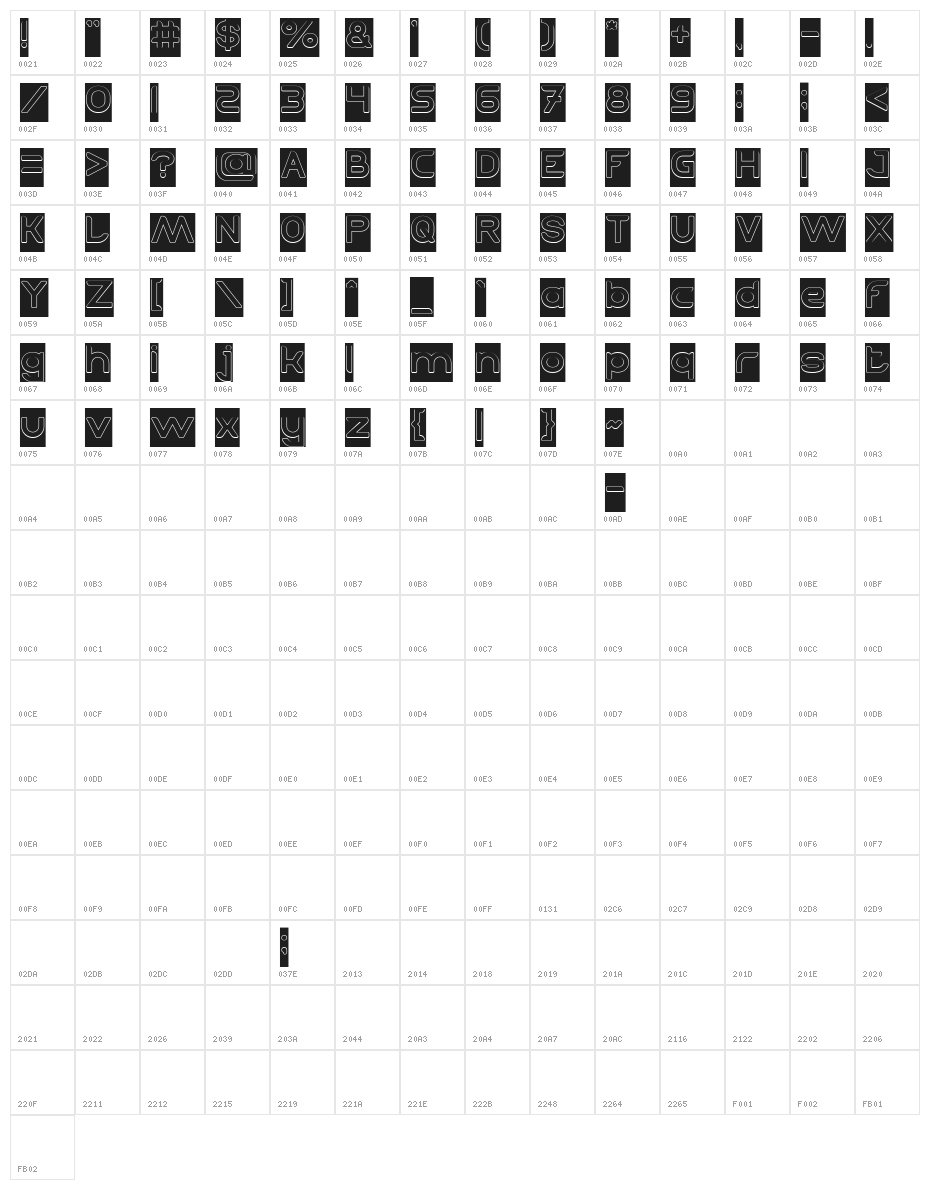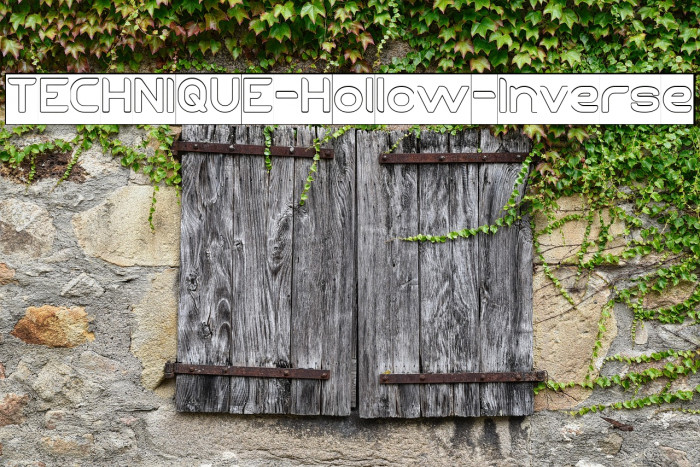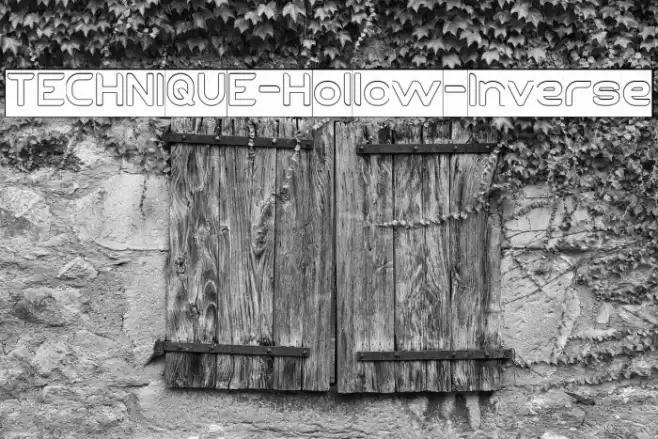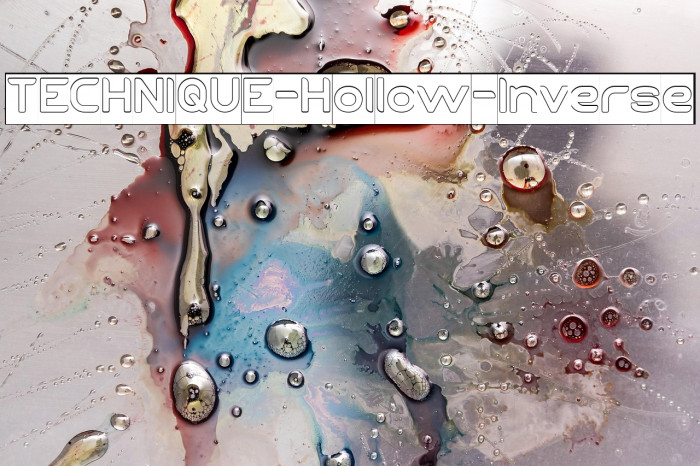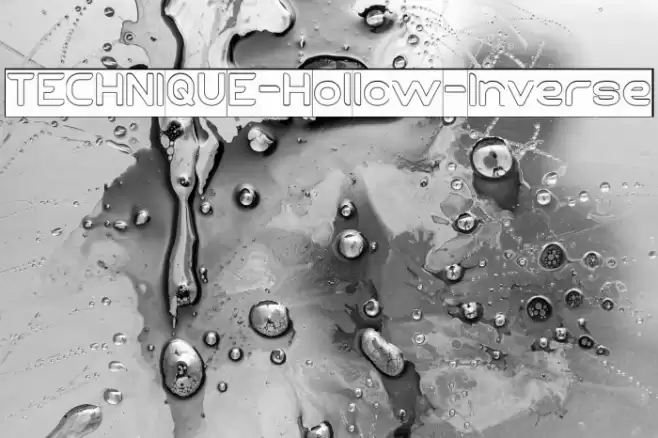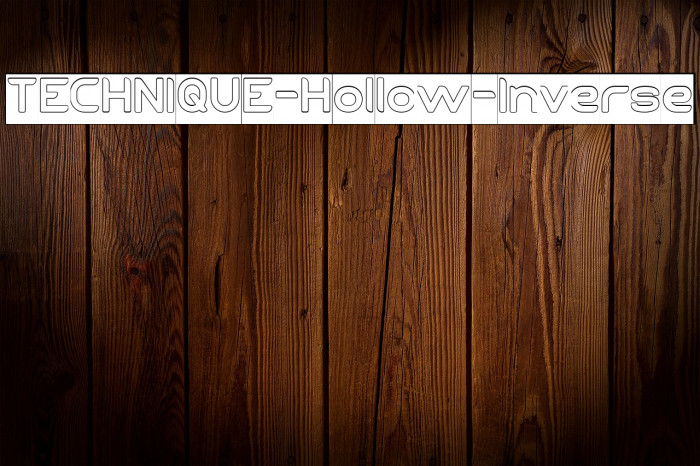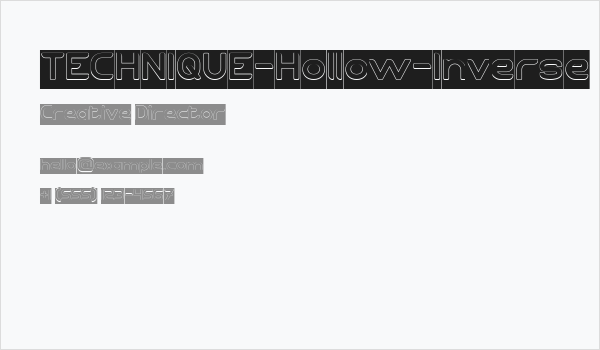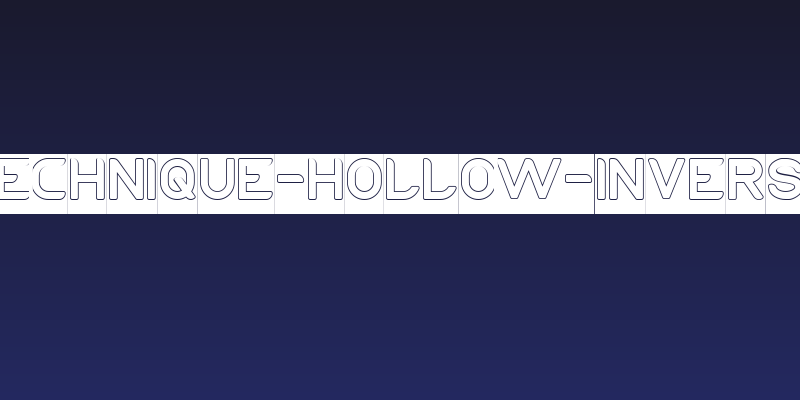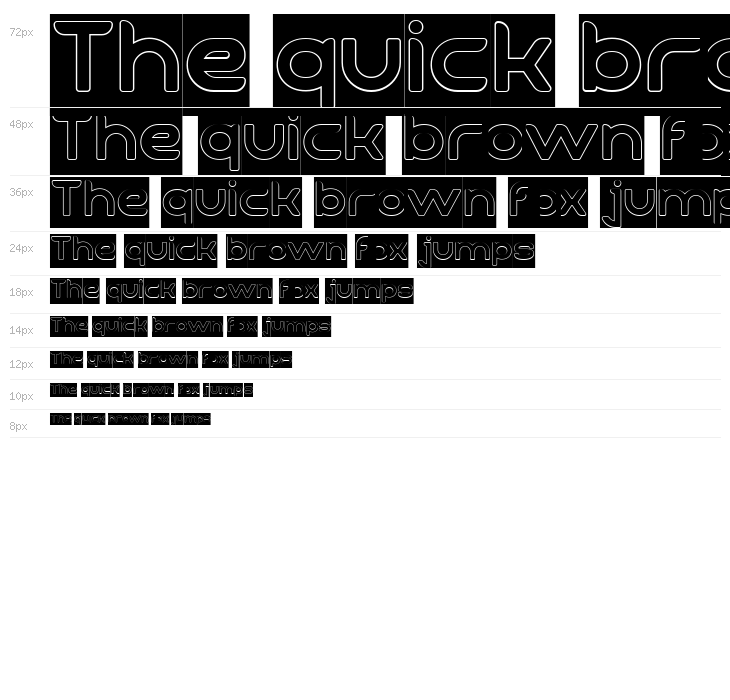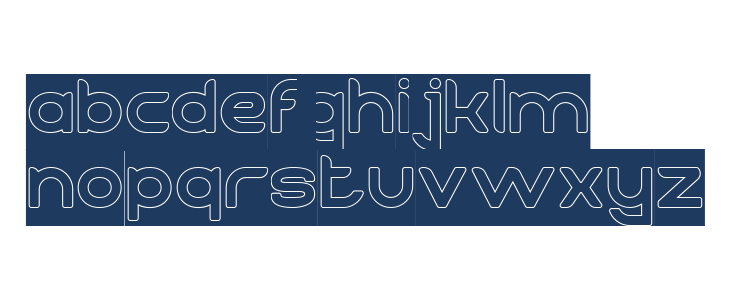
TECHNIQUE-Hollow-Inverse Font
TECHNIQUE-Hollow-Inverse Description
This font features a hollow, inverse design with a modern and futuristic appeal. The characters are outlined with a consistent stroke width, creating a striking visual effect. The uppercase and lowercase letters maintain a geometric structure, emphasizing clean lines and symmetry. Numbers and special characters follow the same design principles, ensuring uniformity across all glyphs. The font's style is both decorative and functional, making it suitable for various creative applications. Its unique appearance can capture attention and convey a sense of innovation and style.
Proposed ProjectsIdeal for branding, posters, digital media, and any project requiring a modern, eye-catching typeface.